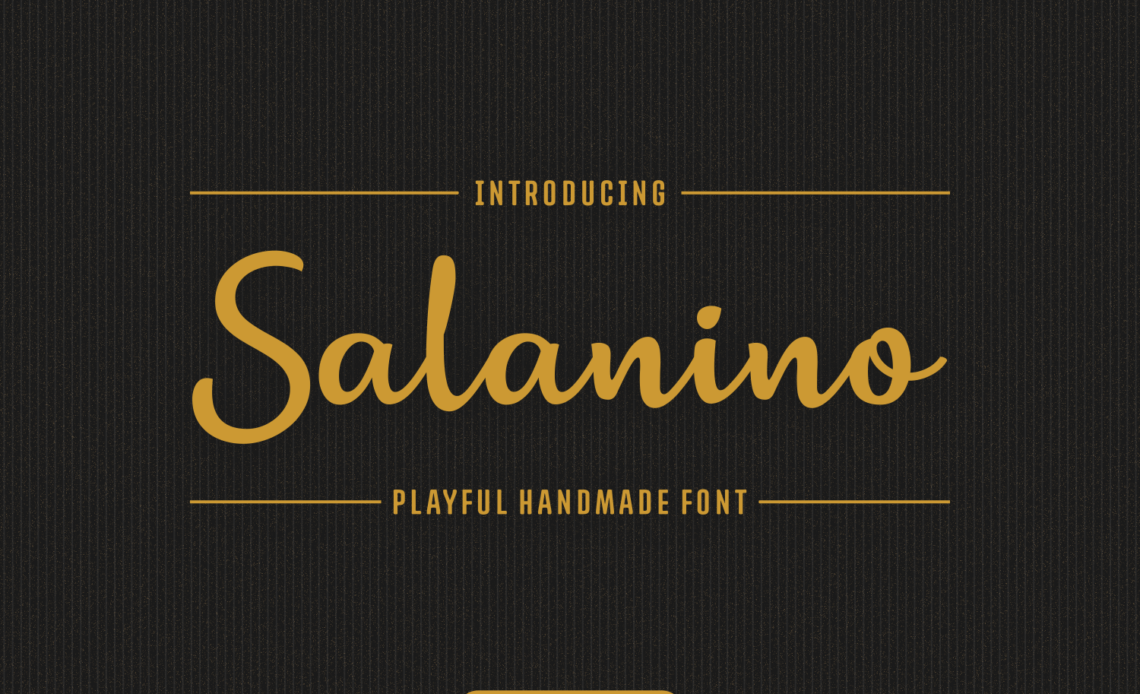
Prepare yourself for a mesmerizing journey into the world of typography with the awe-inspiring Salanino Font. This captivating script font, crafted with meticulous care by The Traveling Fox, is not just a collection of letters; it's an expression of untamed creativity and boundless imagination.
Step into a realm where words dance with an untamed spirit, where every letter holds a story, and every phrase carries a symphony of emotions. Salanino Font is not merely a tool for communication; it's an art form waiting to grace your designs with a unique charm that radiates joy, individuality, and a touch of whimsy.
Unleash the vibrant personality of your designs with the playful and bold letters of Salanino Font. Its youthful exuberance will inject a spark of energy into your projects, captivating your audience with its quirky, expressive strokes.
Embrace the boundless possibilities of this versatile font, designed to adapt gracefully to a myriad of creative endeavors. Whether you're crafting logos that demand attention, designing eye-catching marketing materials that ignite excitement, or simply seeking to add a touch of personality to your social media posts, Salanino Font is your trusted companion.
Dive into a treasure trove of alternate initial and terminal characters, each meticulously crafted to provide endless opportunities for customization. Discover a world where creativity thrives and uniqueness blooms as you weave together words and letters, crafting messages that speak directly to the soul.
With Salanino Font, bland designs become distant memories, replaced by a symphony of visual wonder. It's a font that refuses to blend into the background, demanding attention with its playful dance across your designs. Its bold strokes and graceful curves command the spotlight, transforming ordinary words into extraordinary expressions.
Imagine the delight of your audience as they encounter your designs adorned with the Salanino Font. Its charming imperfections and youthful spirit are guaranteed to evoke smiles and spark conversations.